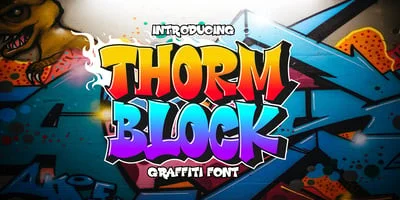
Thorm Block Graffiti Font
Thorm Block Graffiti Font is perfect for street art galleries, urban fashion brands, hip-hop album covers, skateboard company logos, street culture festivals, graffiti artist portfolios, underground music venues, urban lifestyle campaigns, and rebellious social media content. This powerful typeface brings authentic street culture and urban rebellion to both digital and print design applications.
Thorm Block Graffiti Font is exciting because it captures the raw energy and authentic spirit of street art culture, making it an exceptional choice for designers who want to convey urban authenticity with genuine graffiti style. Its bold block letterforms and street-inspired character provide the perfect combination of urban rebellion and readable functionality, ensuring your projects communicate street credibility, cultural authenticity, and urban excellence that resonates with audiences seeking genuine street culture experiences and underground artistic expression.
The Thorm Block Graffiti Font family includes urban weight variations and street elements, featuring regular and bold weights with complementary distressed styles, graffiti-inspired ligatures, and authentic street art decorative elements. Each style maintains consistent urban aesthetics while offering flexibility for different street applications, allowing designers to create powerful visual systems that reflect street culture values and graffiti artistry.
Whether you're designing for street brands, urban culture companies, or underground artistic projects, Thorm Block Graffiti Font delivers authentic street appeal and urban sophistication that connects with audiences seeking genuine street culture and graffiti experiences. This premium typeface offers designers the urban edge and street credibility needed to create designs that communicate graffiti culture, street authenticity, and urban excellence effectively. The font's rebellious character makes it perfect for street branding, urban campaigns, and graffiti applications where authentic street credibility is essential. Download Thorm Block Graffiti Font today and urbanize your creative projects with genuine street sophistication and graffiti typography excellence that defines underground culture standards.